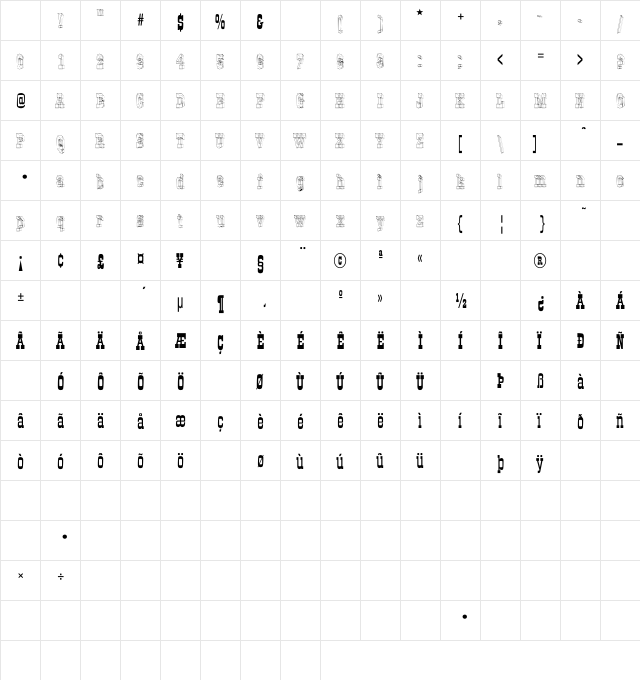
Line Box Regular
Design Context for Line Box
Line Box is a composed and adaptable typeface that performs quietly and consistently across a wide range of design contexts.